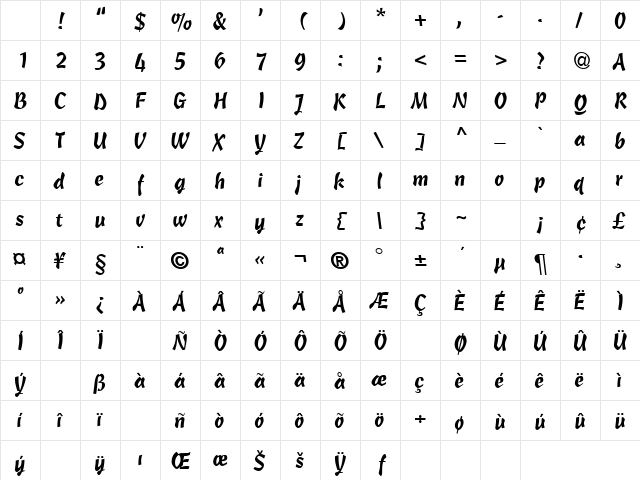
Complete Reims Normal glyph index. Displaying only characters natively supported by Reims Normal font.
Reims is a composed and adaptable typeface that performs quietly and consistently across a wide range of design contexts.